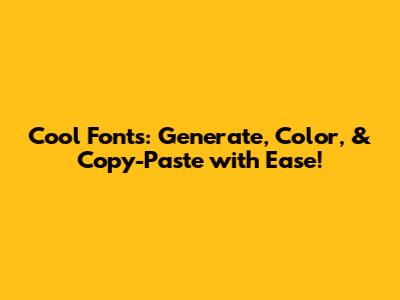
- Serif Fonts: These are the classic, elegant fonts characterized by small strokes (serifs) at the end of each letter. Think Times New Roman or Garamond. They're often used for body text in books and documents because they're generally considered easy to read.
- Sans-Serif Fonts: As the name suggests, these fonts lack the serifs. They're clean, modern, and often used for headlines and on-screen text. Examples include Arial, Helvetica, and Open Sans. They offer a more contemporary vibe.
- Script Fonts: These fonts mimic handwriting, adding a touch of elegance and personality. They can range from formal calligraphy to playful, handwritten styles. Use them sparingly, as they can sometimes be difficult to read in large blocks of text.
- Display Fonts: Designed for impact, display fonts are bold and attention-grabbing. They're perfect for headlines, logos, and any text that needs to stand out. These can include anything from chunky, blocky fonts to intricate, decorative styles.
- Monospace Fonts: In these fonts, each letter takes up the same amount of horizontal space. They're often used for code, as they help with alignment and readability. Courier New is a classic example.
- Color Psychology: Different colors evoke different emotions and associations. Red can signify passion or urgency, while blue often represents trust and reliability. Yellow can be cheerful and energetic, while green often symbolizes nature and growth. Use these associations to your advantage!
- Color Harmony: Choose colors that complement each other. Using a color wheel, you can identify complementary colors (opposite each other), analogous colors (next to each other), or triadic colors (evenly spaced around the wheel). These combinations often create visually pleasing results.
- Contrast and Readability: Ensure there's sufficient contrast between your font color and the background. Dark text on a light background is generally easier to read than the opposite. Avoid using colors that are too similar, as they can make the text difficult to decipher.
- Brand Consistency: If you're using fonts for your brand, stick to your established color palette. This helps create brand recognition and consistency across all your marketing materials.
- Color Picker: This is the most common method, allowing you to select a color from a color palette or enter a specific color code (e.g., hex codes). This gives you precise control over the color of your text.
- Gradient Effects: Some generators let you create gradient effects, where the color gradually changes across the text. This adds a sophisticated and dynamic look.
- Pre-set Color Schemes: For those who aren't color experts, some generators offer pre-set color schemes that are designed to look good together. This is a great starting point.
- Generate Your Font: Input your text and customize it to your liking, including the font style and color.
- Copy the Text: Once you're satisfied with your design, the font generator will usually provide a button or option to copy the text to your clipboard. Simply click this button.
- Paste It Anywhere: Now, go to the platform or application where you want to use your font (e.g., social media, a document, an email). Use the standard paste function (usually Ctrl+V on Windows or Cmd+V on Mac) to paste the text.
- Social Media: Elevate your posts on platforms like Instagram, Facebook, Twitter, and TikTok with eye-catching fonts. Grab attention and make your content stand out! Use it to create more beautiful bios or other important text information.
- Messaging Apps: Add personality to your chats on WhatsApp, Telegram, and other messaging apps. Make your conversations more fun and expressive!
- Documents and Presentations: Design compelling documents and presentations with unique fonts. Create visually appealing headings, titles, and body text that capture your audience's attention.
- Email Marketing: Create engaging email subject lines and body text to grab the reader's attention and increase click-through rates. Make your emails unique and exciting!
- Graphic Design: Use the fonts in your graphic design projects, such as creating logos, flyers, and social media graphics. Enhance your designs with unique font styles.
- Cool Fonts: This generator is a fan favorite, offering a vast array of fonts, color options, and simple copy-paste functionality. It's a great all-around choice. It has a great user interface.
- LingoJam: LingoJam is an awesome generator that gives a ton of variety. You'll definitely want to take a look!
- Stylish Text: Stylish Text is another super popular one, with a huge library of fonts and easy copy-pasting. You can't go wrong here!
- Consider Your Audience: Who are you trying to reach with your text? The font style and color should align with your target audience's preferences and expectations. For example, a playful font might work well for kids, while a more professional font is better for business contexts.